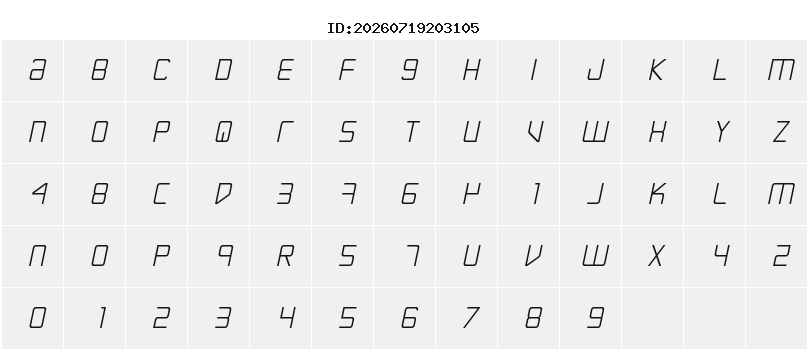
• Font Name: Escape Artist Ttitle Semi-Italic
About Escape Artist Ttitle Semi-Italic.ttf
Escape Artist Ttitle Semi-Italic.ttf is a modern, elegant sans-serif font designed for ultimate readability and visual harmony. Perfect for branding, headlines, web design, and print materials.